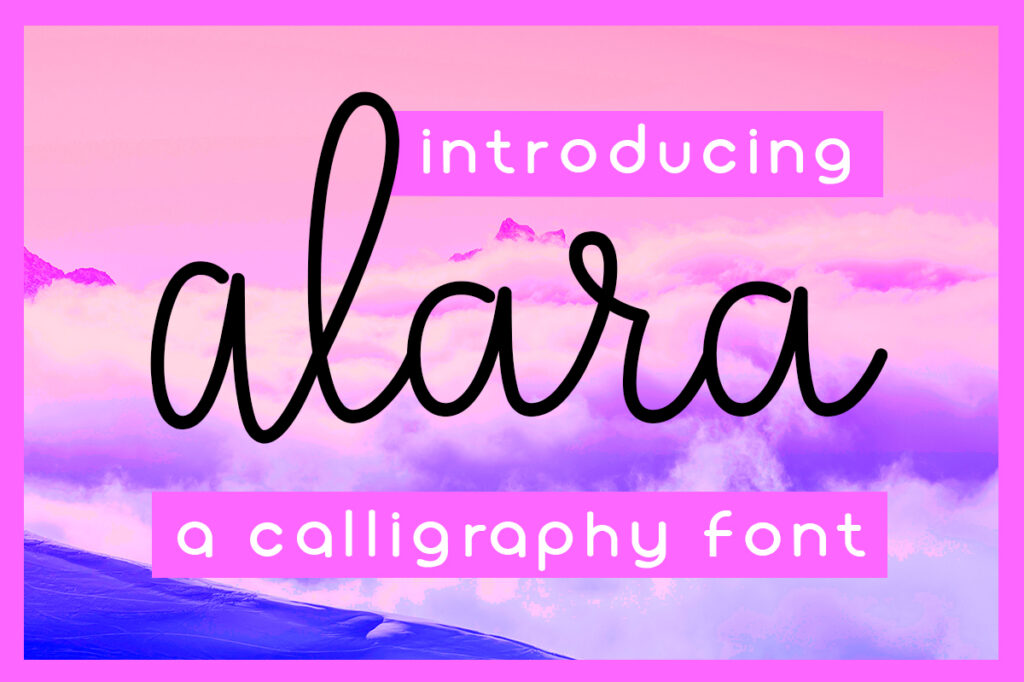
Alara Font: Elevate Your Designs with a Girly and On-Trend Script Font
In the world of typography, fonts play a crucial role in conveying the tone and personality of a design. When it comes to creating visually stunning and stylish designs, the right font can make all the difference. This is where Alara Font comes in – a beautiful, girly, and on-trend script font that can amplify the style of your designs. In this article, we’ll dive into the world of Alara Font, exploring its features, benefits, and uses, as well as provide tips on how to make the most of this stunning script font.
What is Alara Font?
Alara Font is a monoline script font that boasts a fresh and modern look. Characterized by its beautiful swashes, this font is perfect for designers looking to add a touch of elegance and sophistication to their designs. With its clean lines and fluid curves, Alara Font is ideal for a wide range of design projects, from branding and advertising to packaging and digital media.
Key Features of Alara Font
- Girly and On-Trend: Alara Font is a script font that exudes a sense of femininity and style, making it perfect for designs that require a touch of elegance and sophistication.
- Beautiful Swashes: The font features beautiful swashes that can add a decorative touch to your designs, making them stand out from the crowd.
- Monoline: Alara Font is a monoline font, which means that it has a consistent line width, giving it a clean and modern look.
- Fresh and Modern: The font’s clean lines and fluid curves give it a fresh and modern feel, making it perfect for designs that require a contemporary look.
Benefits of Using Alara Font
So, why should you choose Alara Font for your design projects? Here are just a few benefits of using this stunning script font:
- Adds Elegance and Sophistication: Alara Font can add a touch of elegance and sophistication to your designs, making them stand out from the crowd.
- Versatile: The font is versatile and can be used for a wide range of design projects, from branding and advertising to packaging and digital media.
- Easy to Read: Despite its decorative nature, Alara Font is easy to read, making it perfect for designs that require a clear and concise message.
- Customizable: The font comes with beautiful swashes that can be used to add a decorative touch to your designs, making them more visually appealing.
Tips for Using Alara Font
Now that we’ve covered the features and benefits of Alara Font, here are some tips for using this stunning script font in your design projects:
- Use it for Headings: Alara Font is perfect for headings and titles, where its decorative nature can be fully appreciated.
- Pair it with a Sans-Serif Font: For body text, pair Alara Font with a sans-serif font to create a nice contrast and add visual interest to your designs.
- Experiment with Swashes: Don’t be afraid to experiment with the font’s swashes to add a decorative touch to your designs.
- Use it for Branding and Advertising: Alara Font is perfect for branding and advertising projects, where its elegant and sophisticated nature can help to create a lasting impression.
In conclusion, Alara Font is a stunning script font that can amplify the style of your designs. With its beautiful swashes, clean lines, and fluid curves, this font is perfect for designers looking to add a touch of elegance and sophistication to their designs. Whether you’re working on a branding project, advertising campaign, or packaging design, Alara Font is a great choice. So why not give it a try and see how it can elevate your designs?
- What is Alara Font? Alara Font is a monoline script font with beautiful swashes that can amplify the style of your designs.
- Is Alara Font easy to read? Yes, despite its decorative nature, Alara Font is easy to read and can be used for body text.